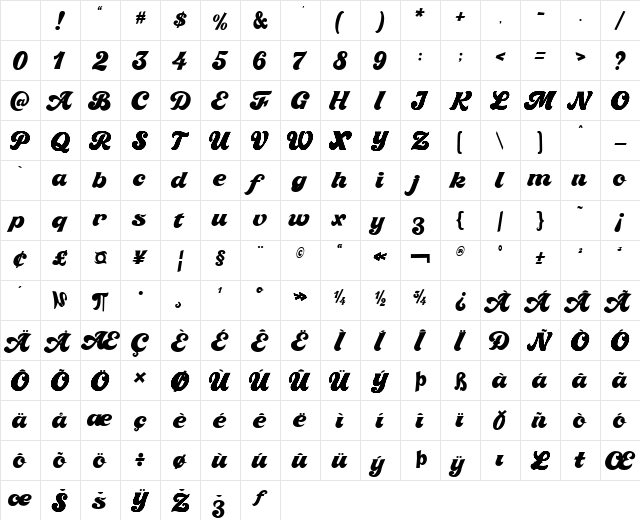
Complete Midnight Angel Regular glyph index. Displaying only characters natively supported by Midnight Angel Regular font.
Midnight Angel is a composed and adaptable typeface that performs quietly and consistently across a wide range of design contexts.